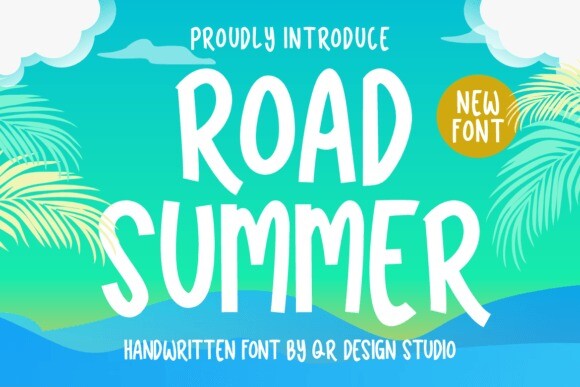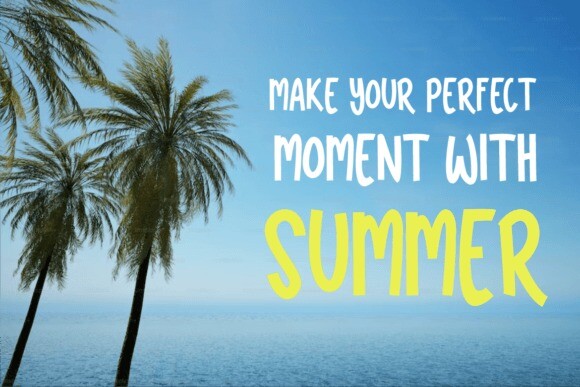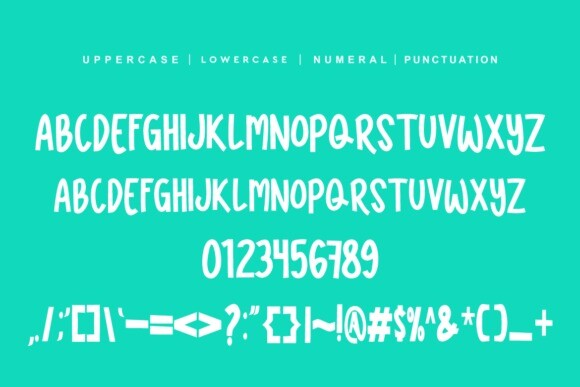
Road Summer Display Font
Road Summer Font is a bold and authentic handwritten font. The font is suitable for any branding project like logo, summer, greeting card, and many more. Outstanding in a wide range of contexts.